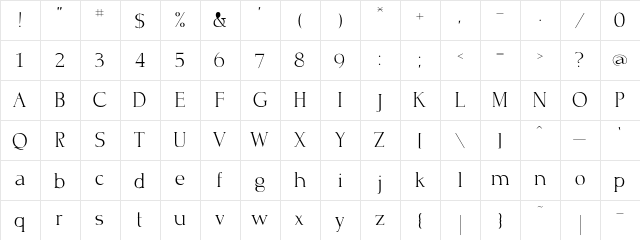
CrispLightC Regular Font Preview
CrispLightC Regular
Design Context for CrispLightC Typeface
CrispLightC offers clean, dependable letterforms without strong stylistic allegiance, making it a practical choice for designers who need flexibility. The delicate stroke weight brings airiness and refinement to layouts.